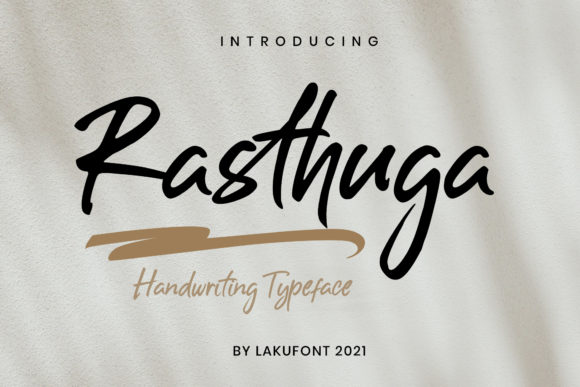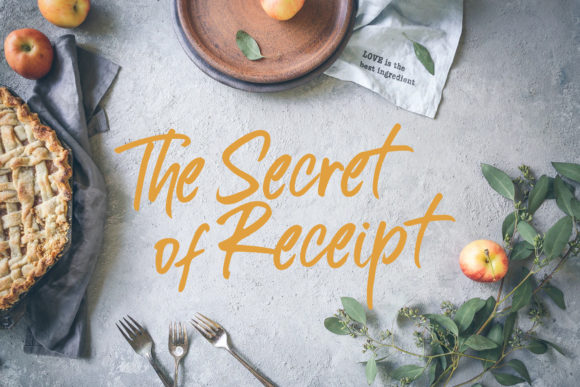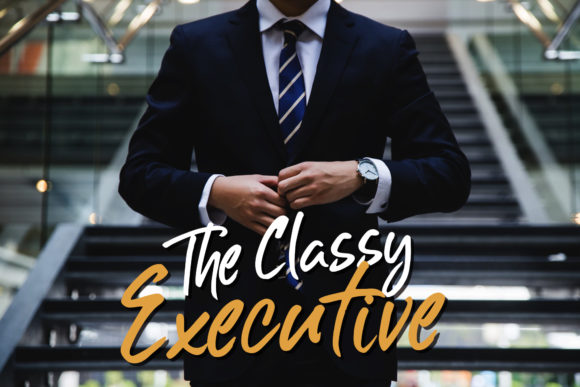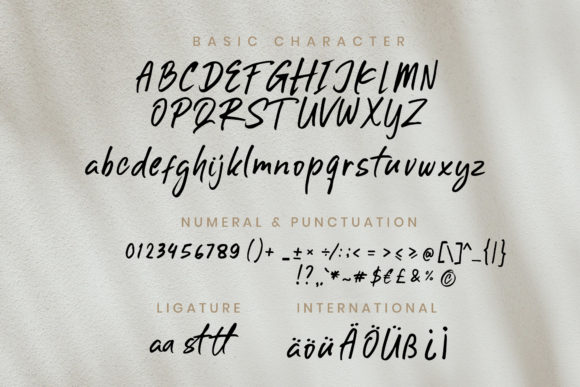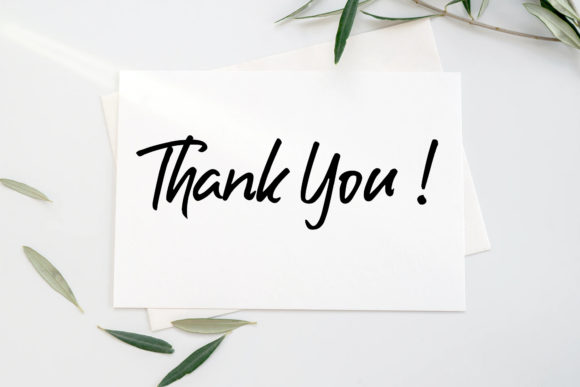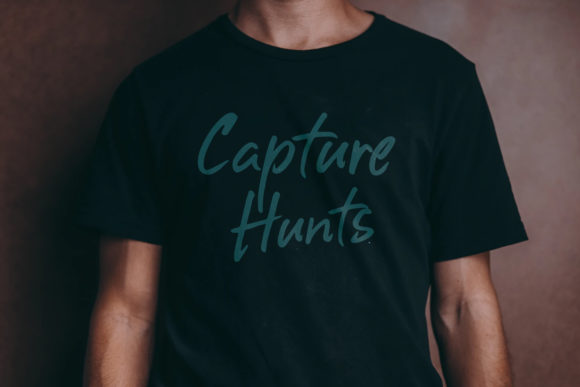
Rasthuga Font
About Rasthuga Font
“Rasthuga” sounds like a stylish and flowing handwritten font that brings a sweet touch to your designs. With its versatility, this font is suitable for a wide range of applications, making it perfect for various design projects.
By using “Rasthuga” in your designs, you can add a touch of elegance and charm. Its flowing script style exudes a sense of creativity and warmth, making your designs feel more personalized and captivating.
This font’s wide range of applications allows you to use it for greeting cards, kids’ crafts, posters, social media graphics, and more. “Rasthuga” can bring a delightful and whimsical feel to your designs, making them stand out with a sweet and joyful vibe.
Whether you’re working on projects for children or looking to add a playful element to your designs, “Rasthuga” can be your go-to font.
Embrace the beauty of “Rasthuga” and let it infuse your designs with its stylish and flowing charm. Its versatility makes it a perfect companion for a wide array of design projects, allowing you to explore endless creative possibilities.
Incorporate “Rasthuga” into your designs with enthusiasm, and you’ll witness how it elevates your creations with its sweet and delightful touch.
In conclusion, “Rasthuga” is a stylish and flowing handwritten font that adds a sweet touch to your designs. Embrace its versatility and use it for various design projects, from kids’ crafts to greeting cards. With “Rasthuga,” your designs will exude elegance, charm, and a sense of delightful creativity that captures the hearts of your audience.